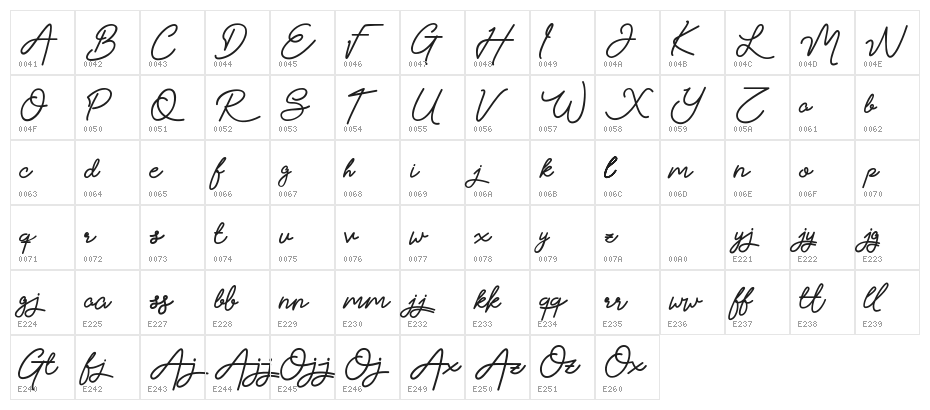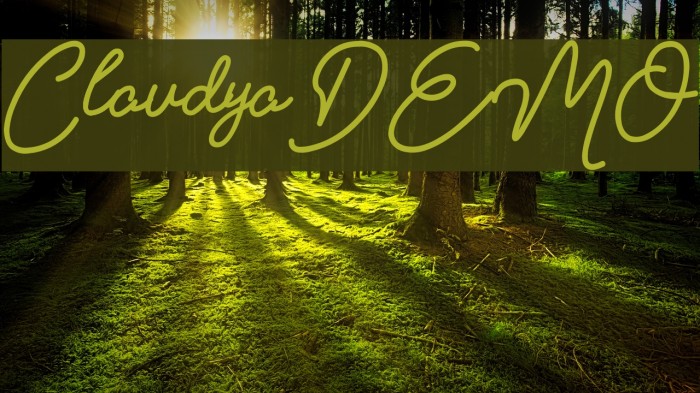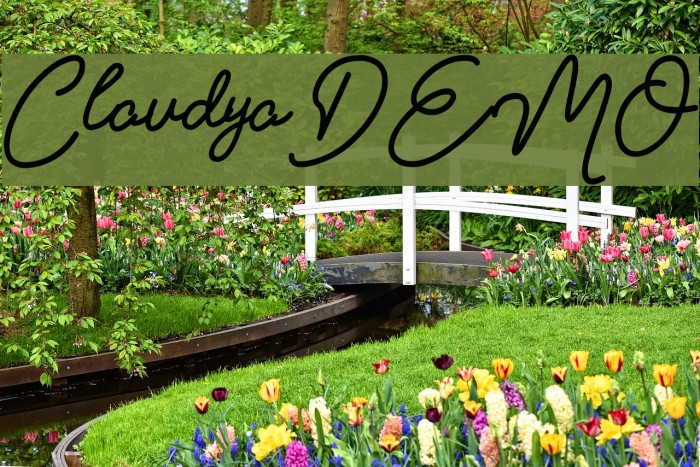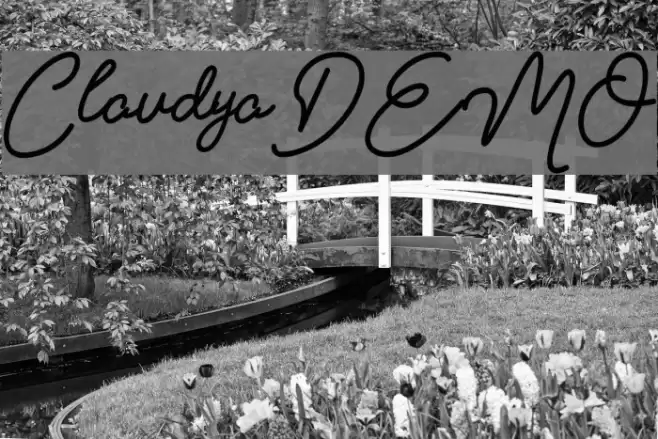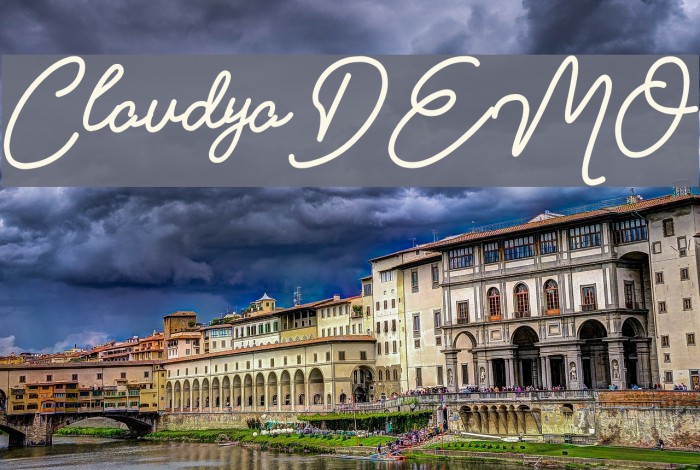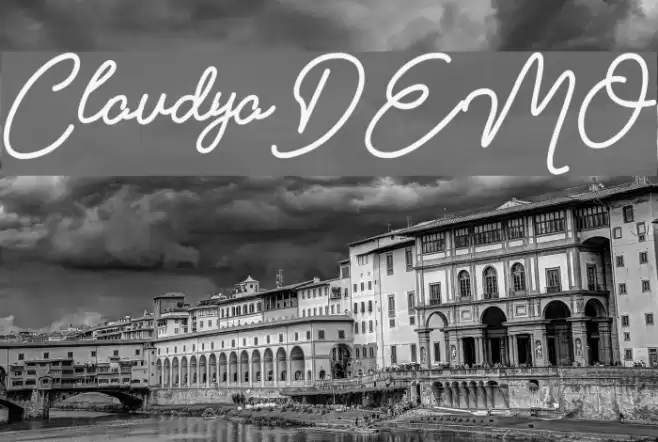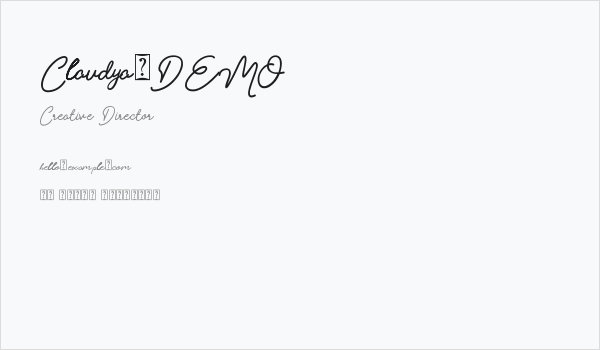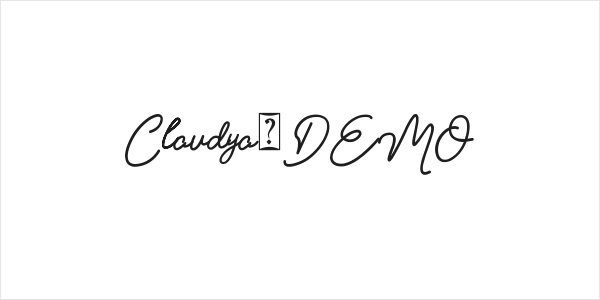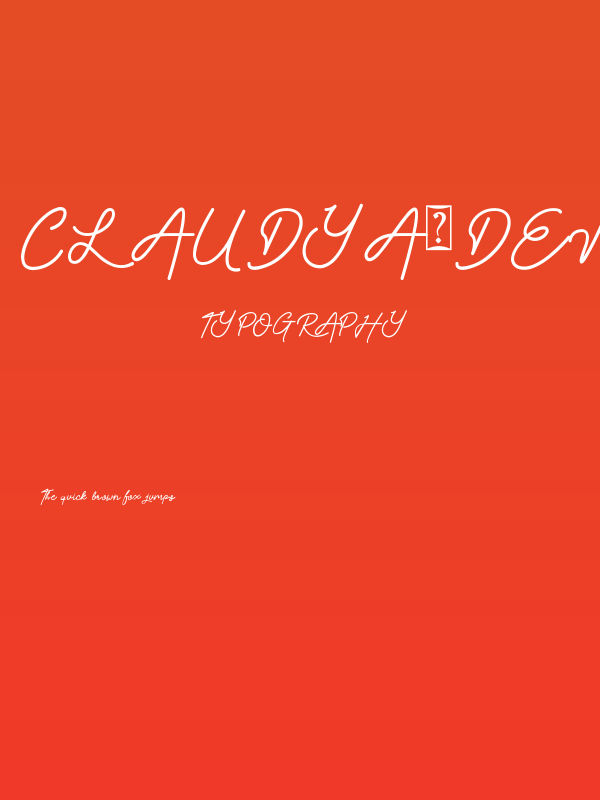
Claudya_DEMO Font
Claudya_DEMO Description
This font features a fluid and elegant script style, characterized by its smooth, flowing lines and cursive letterforms. The uppercase letters are slightly more formal, with a consistent slant and rounded edges, while the lowercase letters maintain a playful and approachable feel. The strokes are moderately thick, providing a balanced contrast that enhances readability without sacrificing its decorative appeal. This font is well-suited for projects that require a personal touch, such as invitations, greeting cards, and branding materials.
| Proposed Projects | Ideal for invitations, greeting cards, branding materials, and any project requiring a personal touch. |